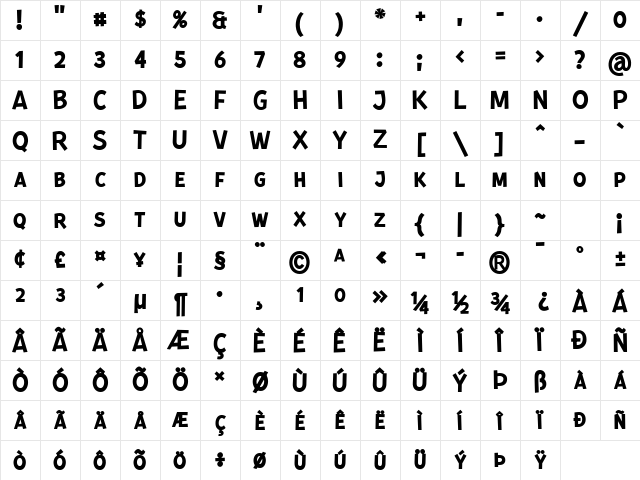
Kurri Island Caps Med Regular
Foundry: Mans Greback
Designer: Mans Greback
Design Context for Kurri Island Caps Med
Kurri Island Caps Med is a composed and adaptable typeface that performs quietly and consistently across a wide range of design contexts.